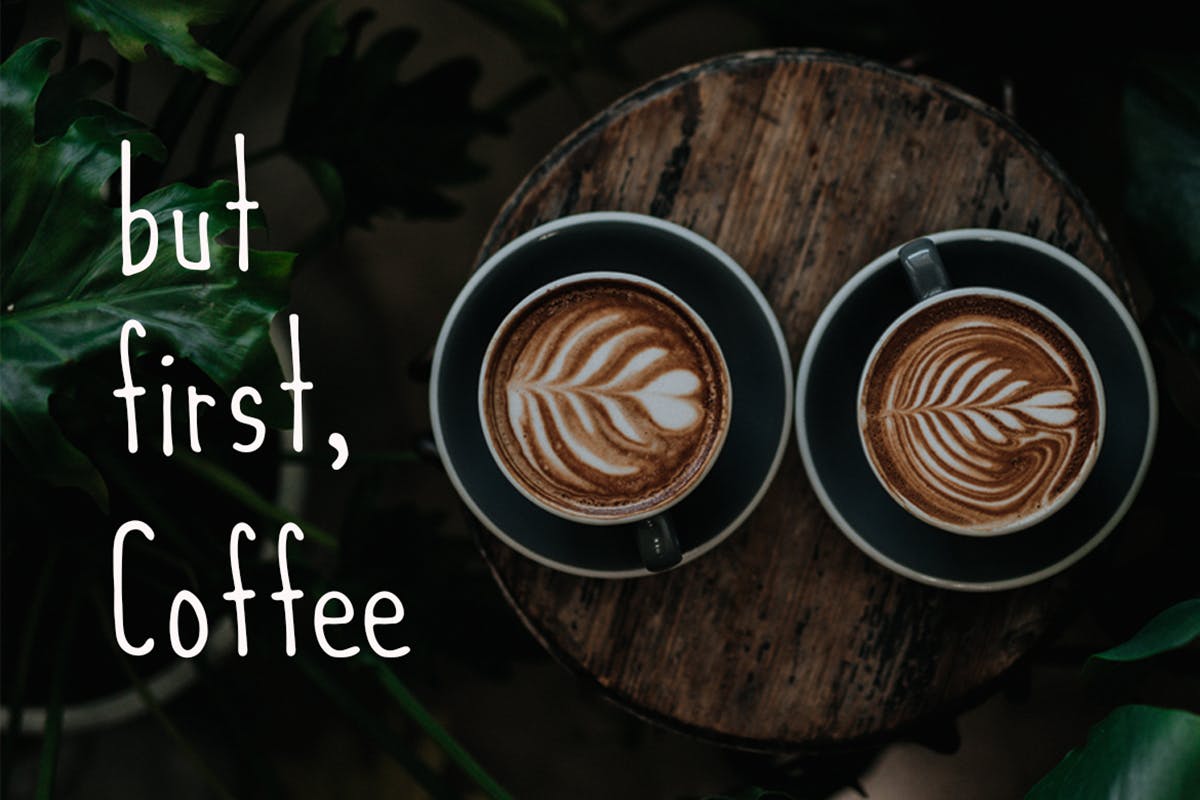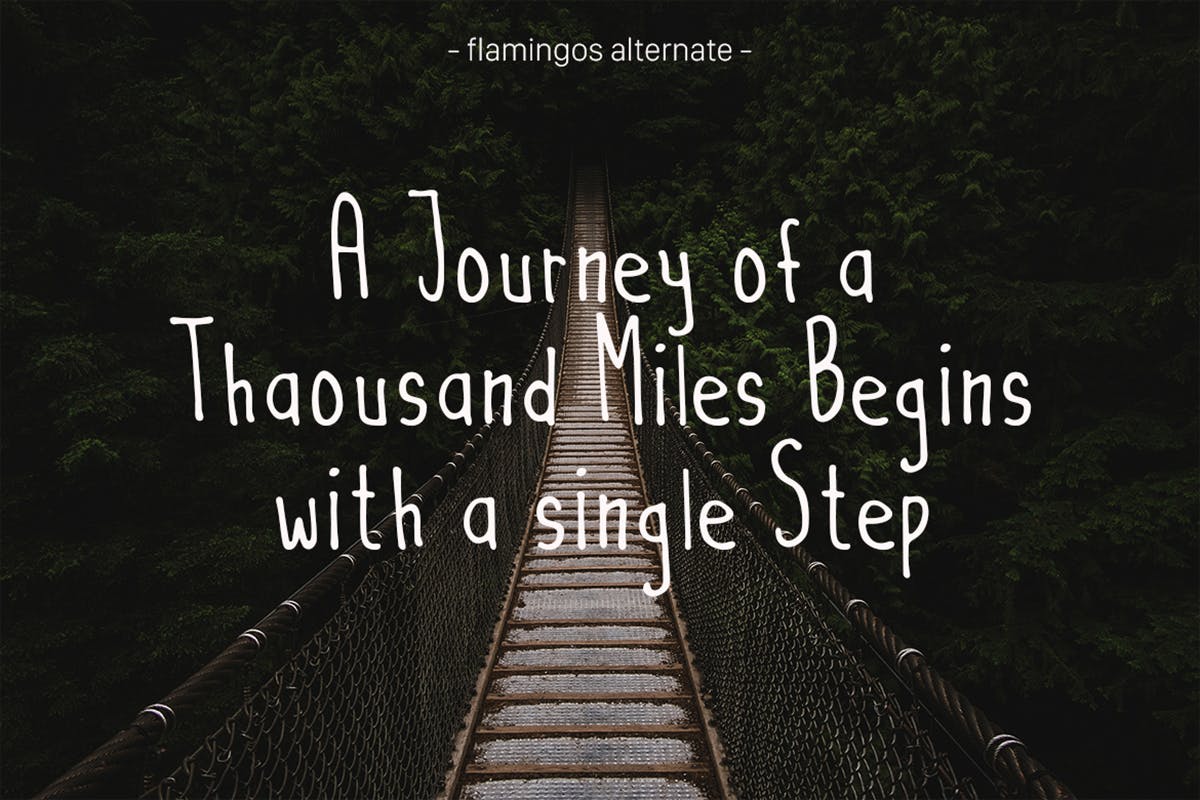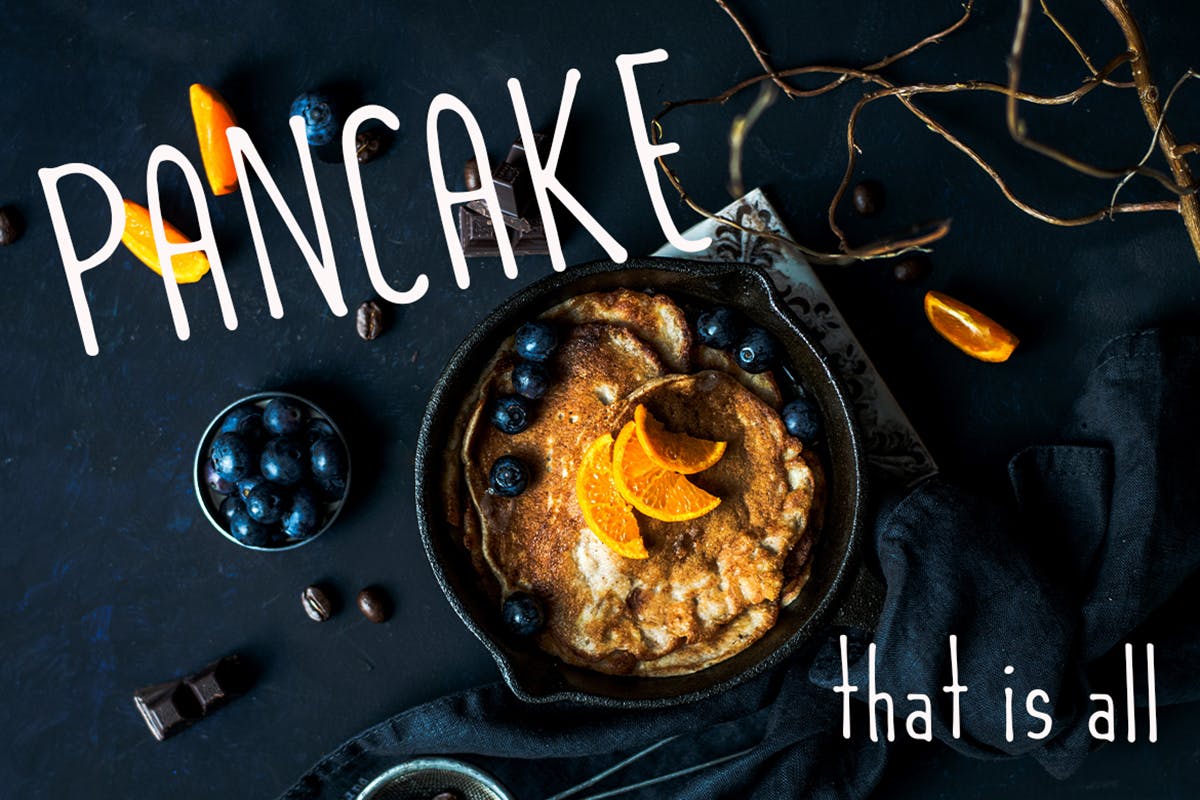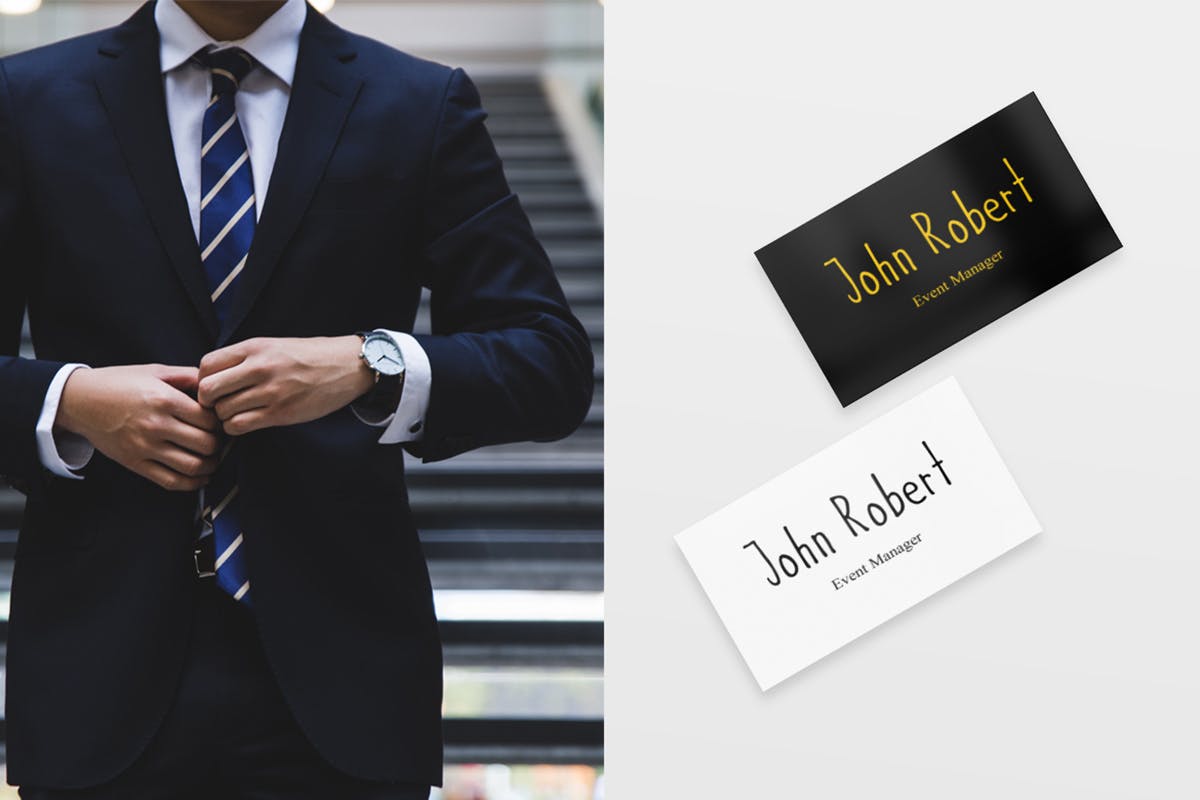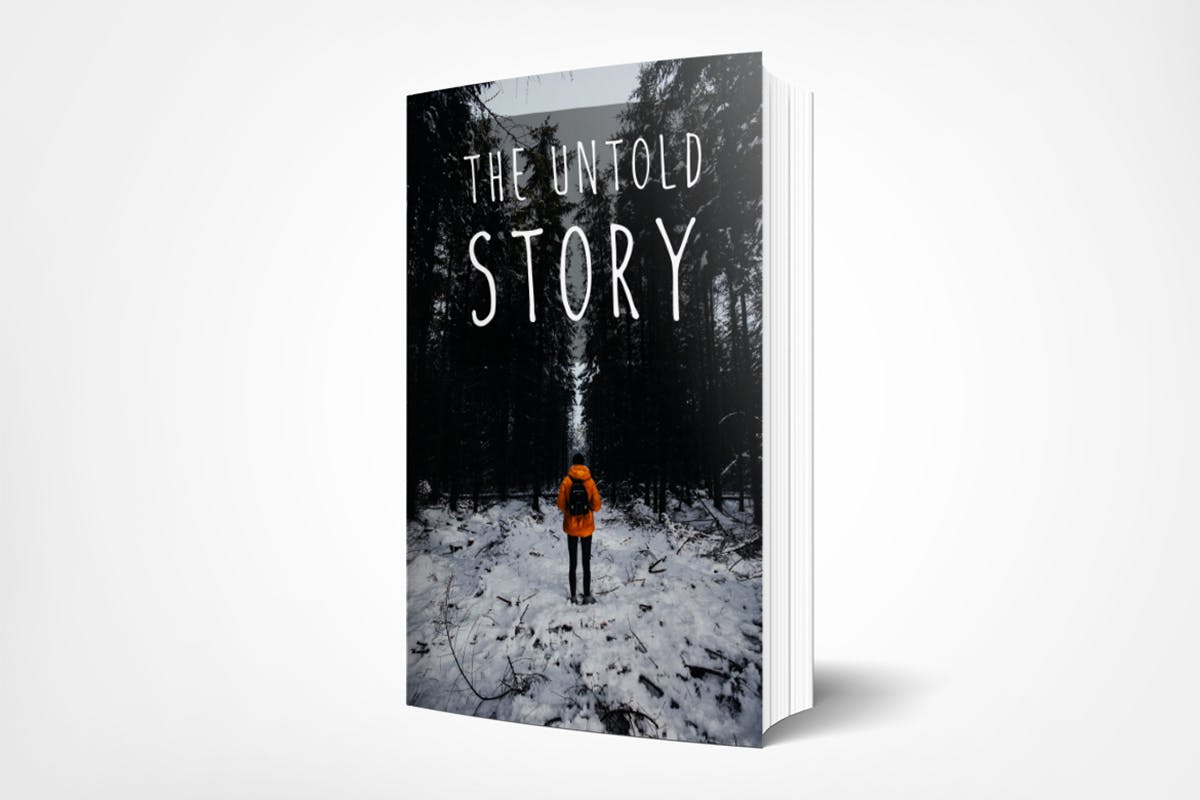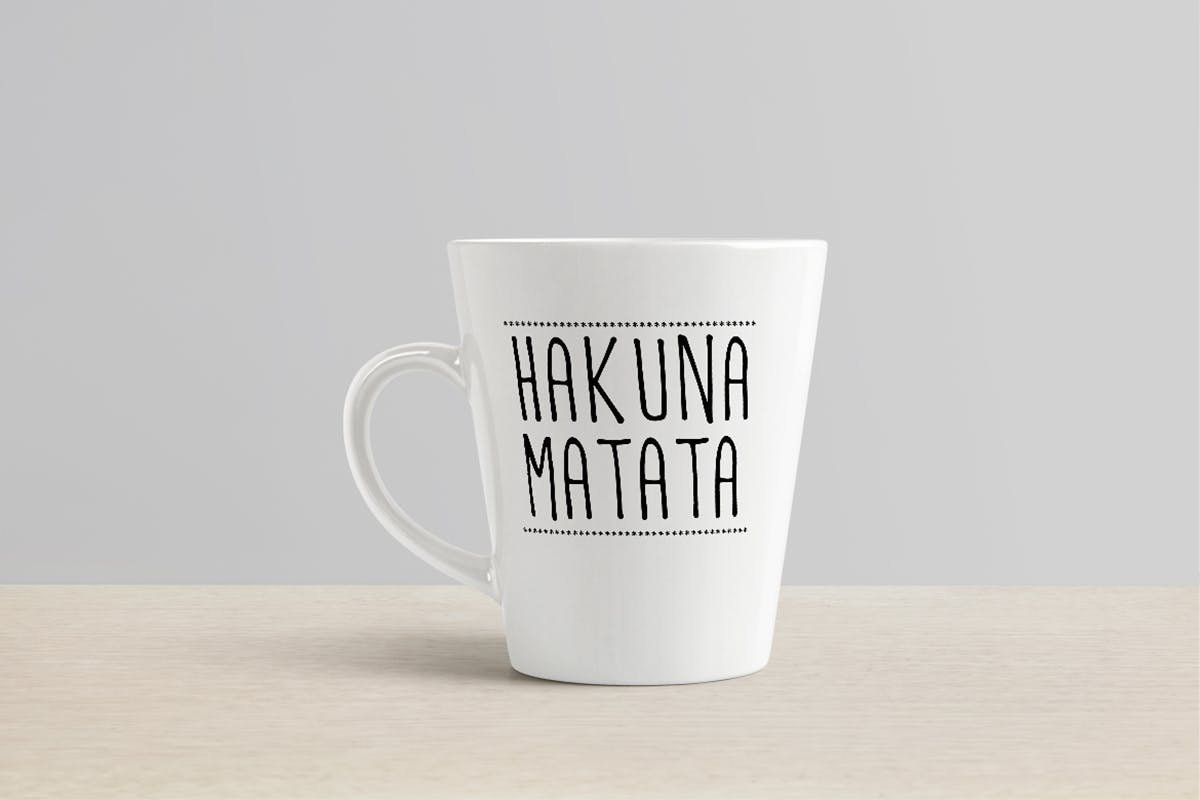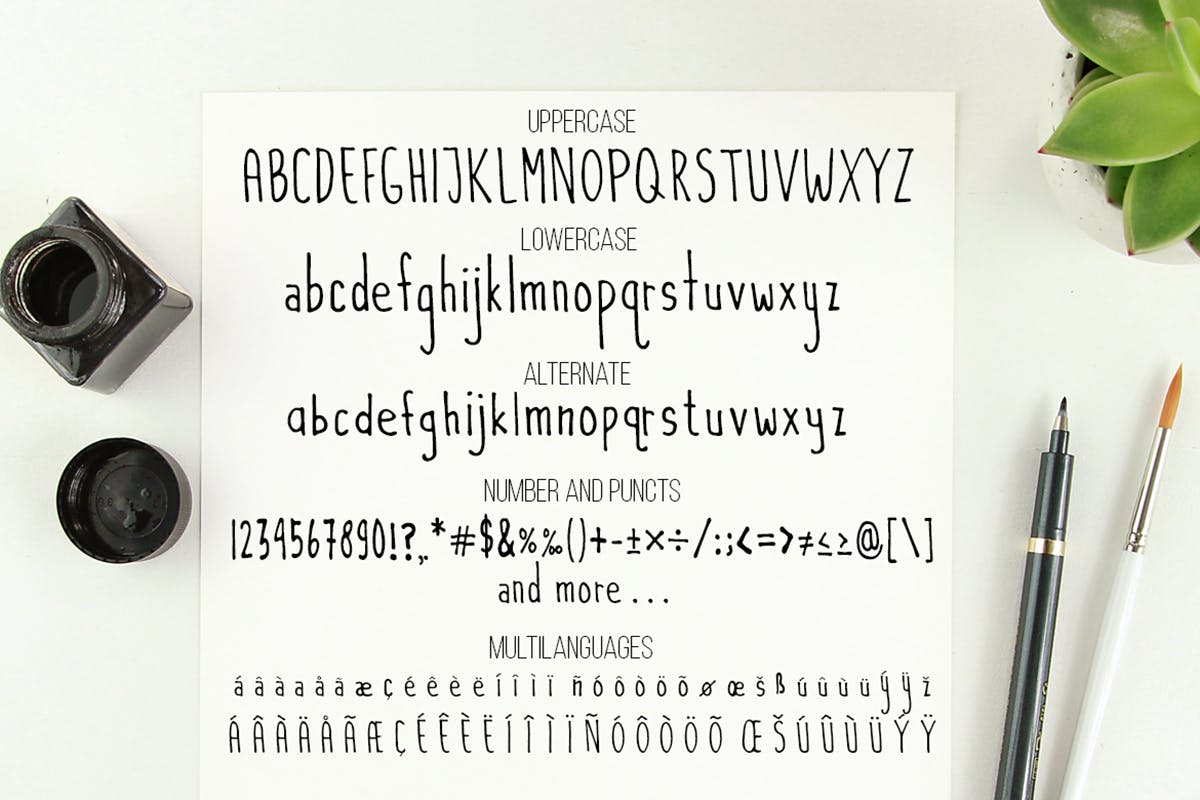
Free Flamingos Handwritten Font
Free Flamingos Handwritten Font is a marvelous written font. It is useful for branding, logo, packaging and more. This font has a playful character that you can use on a project related to children. Also, this free font has a written glyph style. However, this font is a personal license use, you cannot use it on commercial projects. Hence, you can get the premium version for this font by clicking the premium version button below.